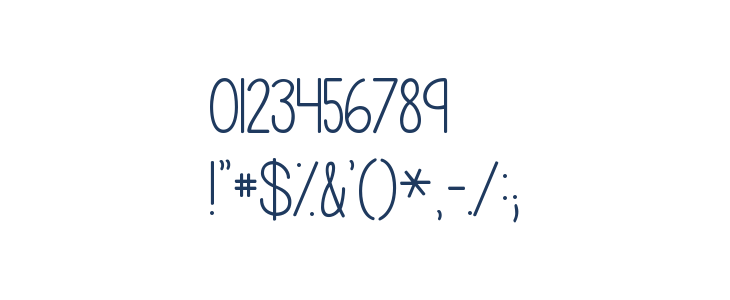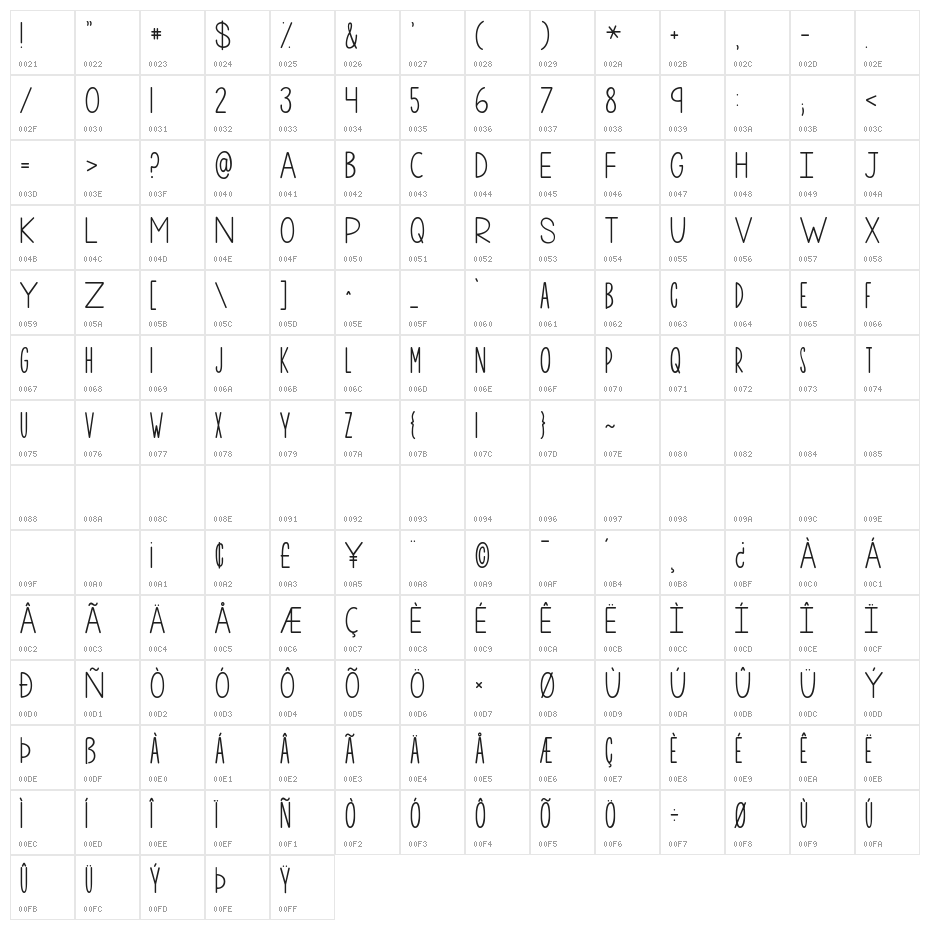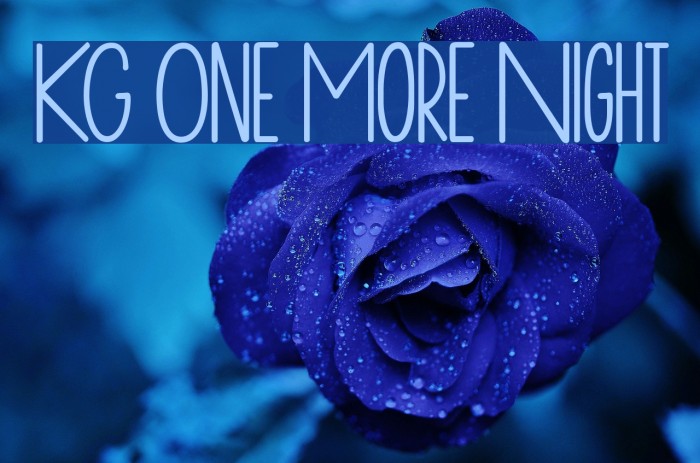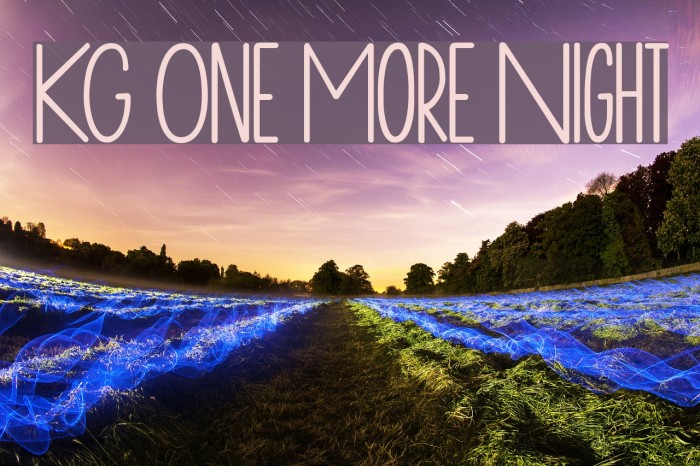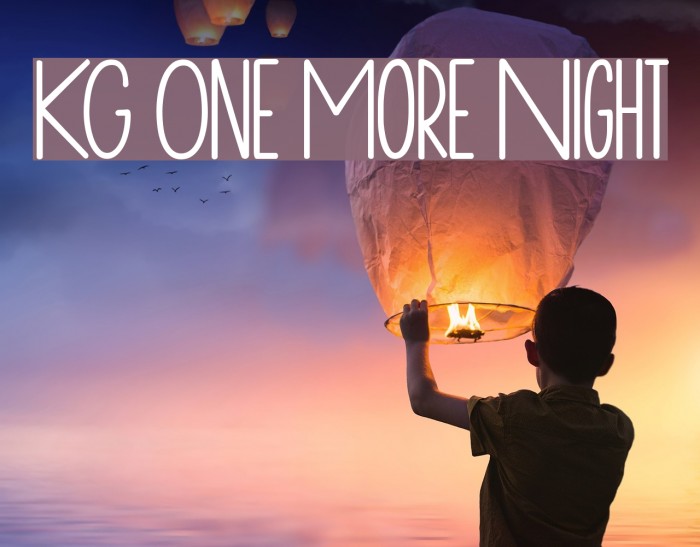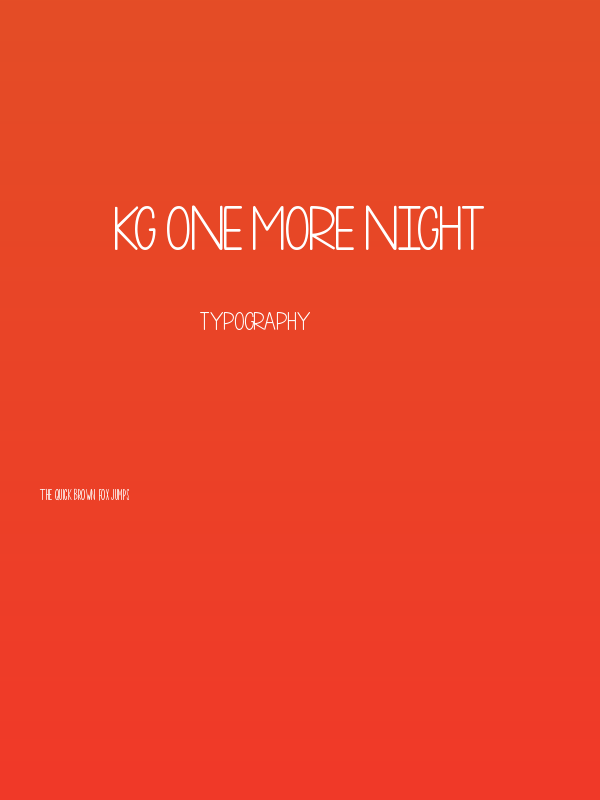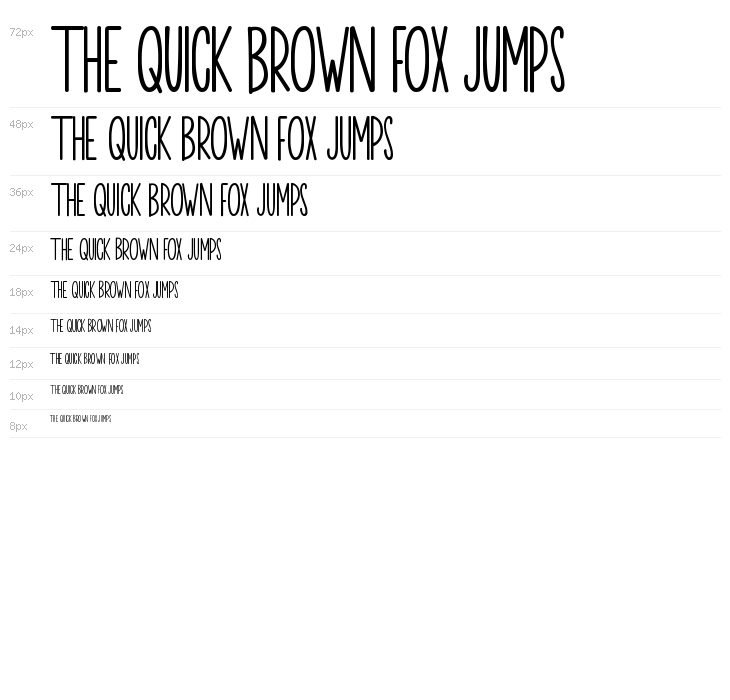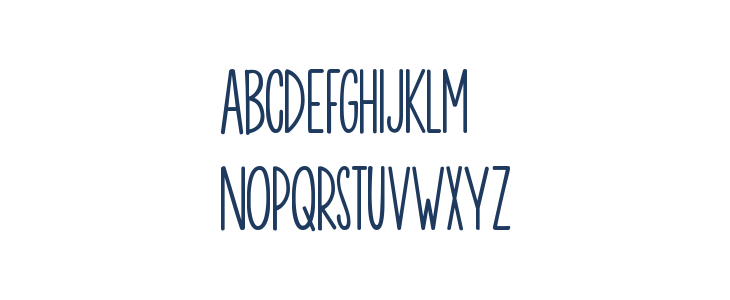
KG One More Night Font
KG One More Night Description
This font features a playful and whimsical style with tall, narrow letters that have a hand-drawn appearance. The characters are evenly spaced, creating a clean and organized look. The uppercase and lowercase letters maintain a consistent height, contributing to the font's uniformity. The numbers and special characters are designed to match the overall aesthetic, with smooth curves and rounded edges. This font is ideal for projects that require a fun and approachable feel, such as children's books, invitations, or creative branding.
| Proposed Projects | Ideal for children's books, invitations, creative branding, and playful designs. |